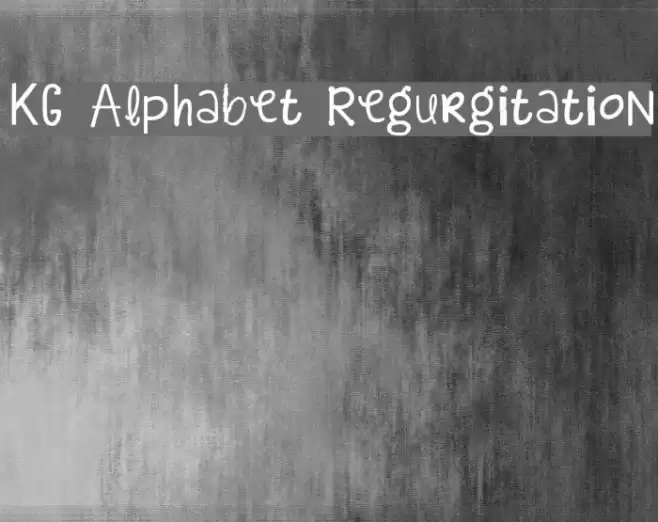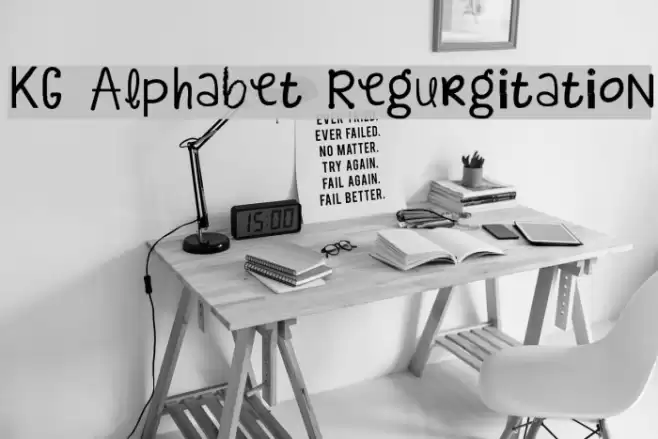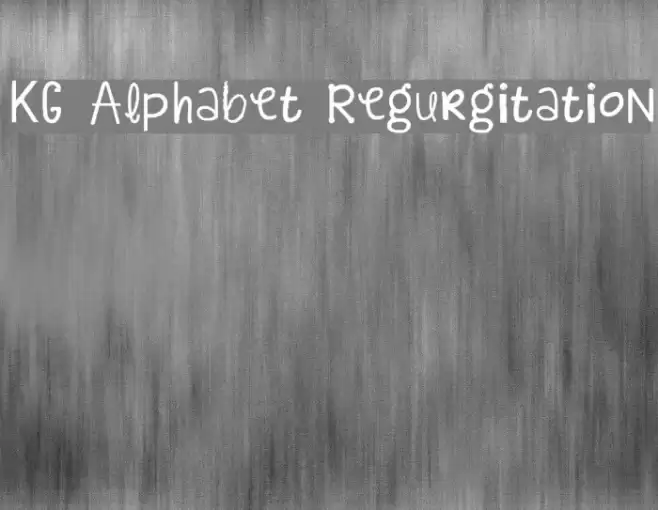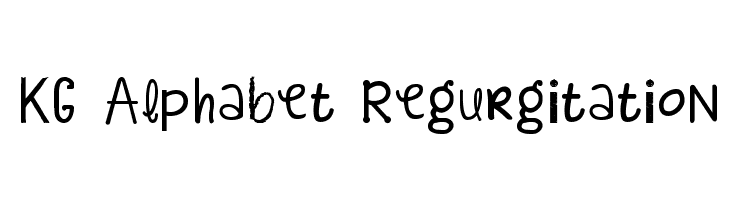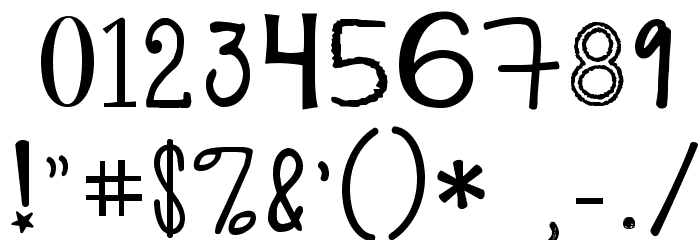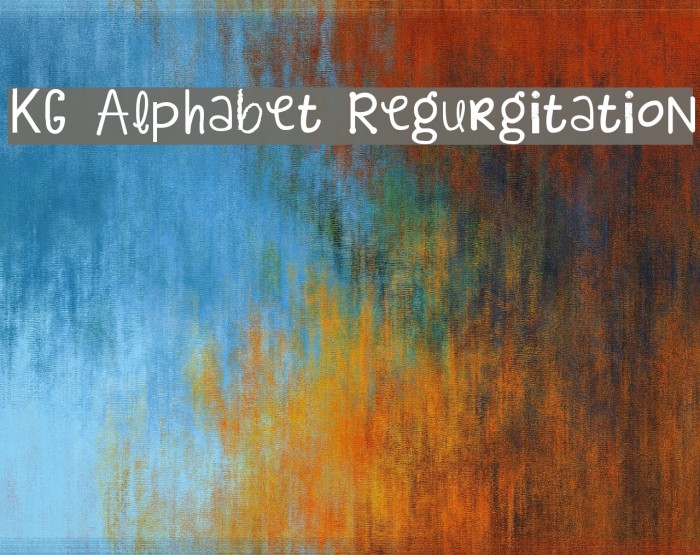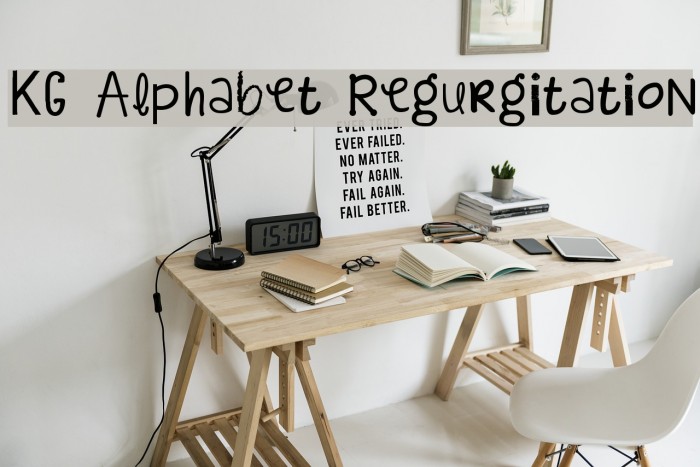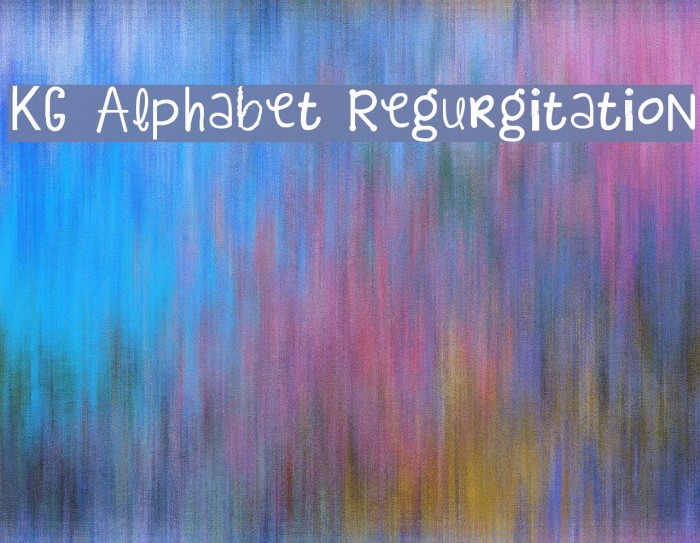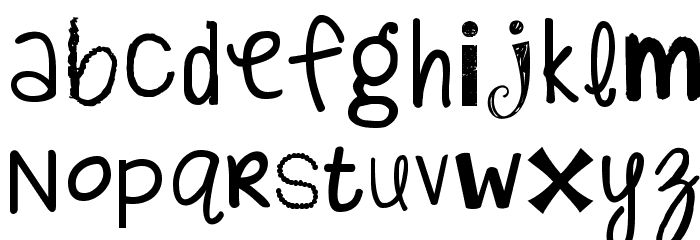
KG Alphabet Regurgitation Font
KG Alphabet Regurgitation Description
This font is a playful and eclectic mix of styles, combining elements of whimsy and creativity. Each character has a unique flair, with some letters featuring decorative elements like stars or dots. The font has a hand-drawn feel, with varying stroke thicknesses and irregular shapes that add to its charm. It includes both uppercase and lowercase letters, numbers, and a range of special characters. The overall appearance is bold and eye-catching, making it suitable for projects that require a fun and informal touch.
A playful, eclectic font with a hand-drawn, whimsical style from Uncategorized fonts.
- Proposed Projects: Ideal for children's books, playful invitations, creative posters, and any project needing a fun, informal touch.